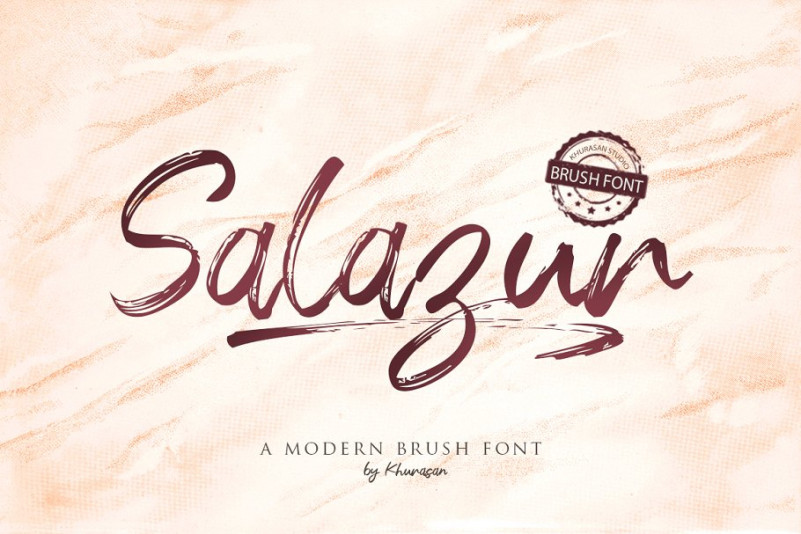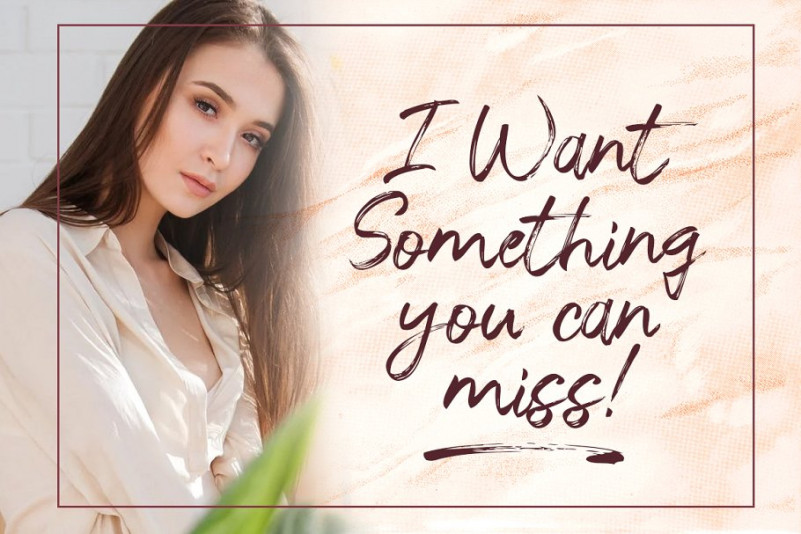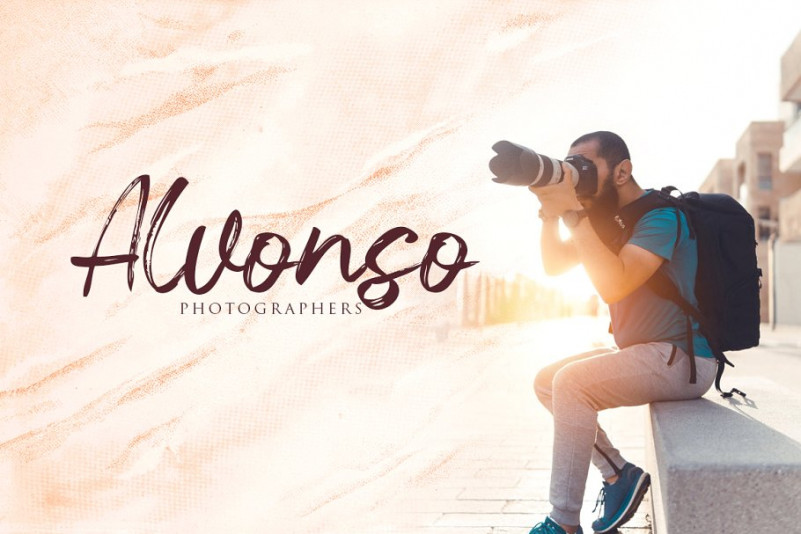
Salazur Font
The Salazur is a fresh modern script font, elegant and modern feel character set. The Salazur font includes a full set capital and lowercase letters, as well as multi-lingual support, swashes, numerals, & punctuation.